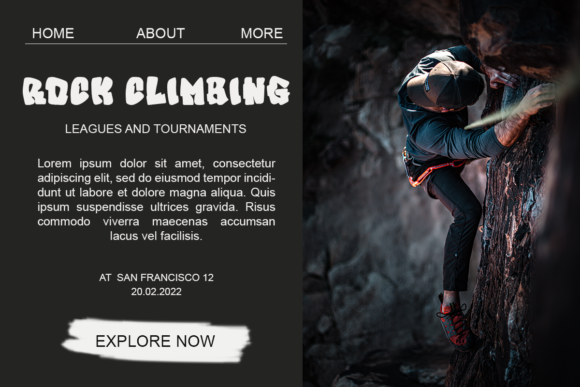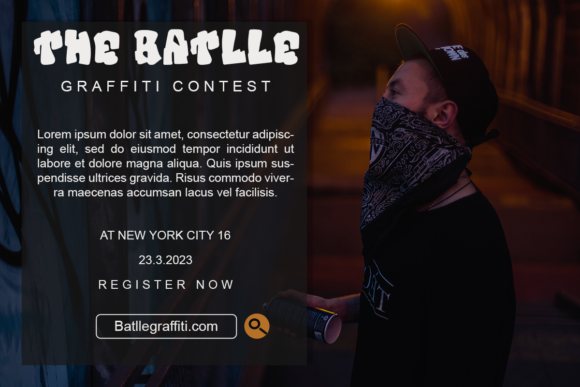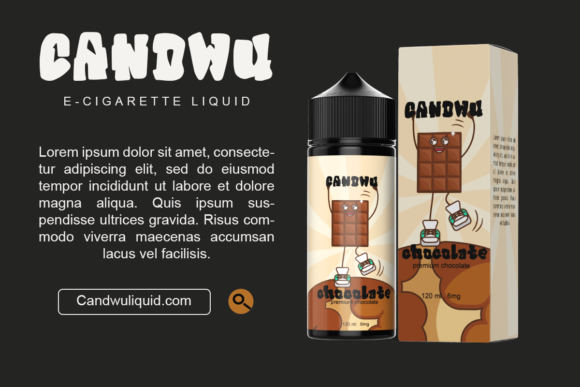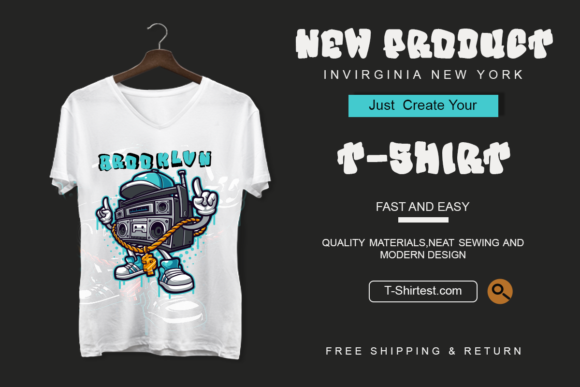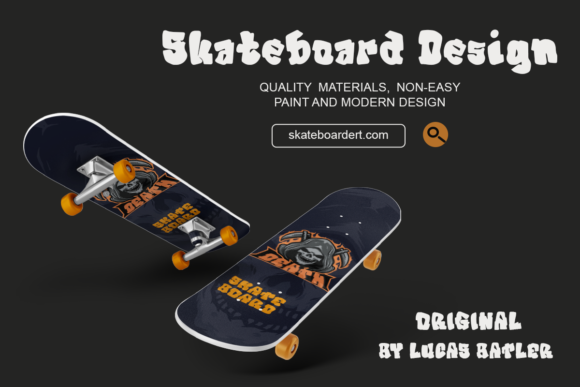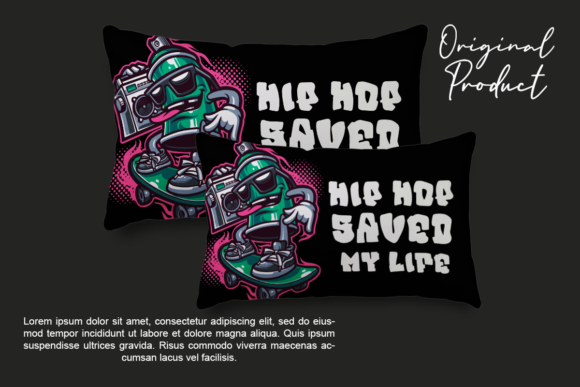
Introducing Alpha Font: Elevate Your Designs with a Modern and Unique Display Font
In the world of typography, a font can make or break a design. For designers and crafters looking to add a touch of elegance and sophistication to their work, Alpha Font is an excellent choice. This modern and unique display font is perfect for creating stunning brand logos, invitations, greeting cards, and any other type of project that requires a distinctive look.
What Makes Alpha Font Stand Out?
Alpha Font boasts a range of features that set it apart from other fonts. One of its key benefits is its multilingual support, which allows designers to create content for a global audience. Whether you’re working on a project that requires English, Spanish, French, or any other language, Alpha Font has got you covered.
Another notable feature of Alpha Font is its style variations. With a range of different styles to choose from, designers can experiment with different looks and feels to find the perfect fit for their project. Whether you’re going for a bold and dramatic look or a more subtle and understated approach, Alpha Font has the versatility to deliver.
Perfect for a Range of Design Projects
Alpha Font is an incredibly versatile font that can be used for a wide range of design projects. Here are just a few examples of how you can use Alpha Font to elevate your designs:
- Brand Logos: Create a lasting impression with a unique and memorable brand logo that showcases your brand’s personality and style.
- Invitations: Make your invitations stand out with a beautiful and elegant font that’s sure to impress.
- Greeting Cards: Add a touch of sophistication to your greeting cards with Alpha Font’s stylish and modern look.
- Posters and Flyers: Create eye-catching posters and flyers that grab attention and communicate your message effectively.
Why Choose Alpha Font?
So why should you choose Alpha Font for your design projects? Here are just a few reasons:
- Unique and Modern Design: Alpha Font boasts a unique and modern design that’s sure to make your projects stand out.
- Multilingual Support: With support for multiple languages, Alpha Font is perfect for designers who work with clients from around the world.
- Style Variations: Experiment with different styles to find the perfect look for your project.
Tips for Using Alpha Font
Here are a few tips for getting the most out of Alpha Font:
- Experiment with Different Styles: Don’t be afraid to try out different styles to find the perfect look for your project.
- Pair with Other Fonts: Alpha Font pairs well with other fonts, so feel free to experiment with different combinations.
- Use for Headings and Titles: Alpha Font is perfect for headings and titles, so use it to add a touch of elegance to your designs.
In conclusion, Alpha Font is an excellent choice for designers and crafters looking to add a touch of elegance and sophistication to their work. With its modern and unique design, multilingual support, and style variations, Alpha Font is perfect for a wide range of design projects. Whether you’re creating a brand logo, invitation, greeting card, or any other type of project, Alpha Font is sure to deliver.